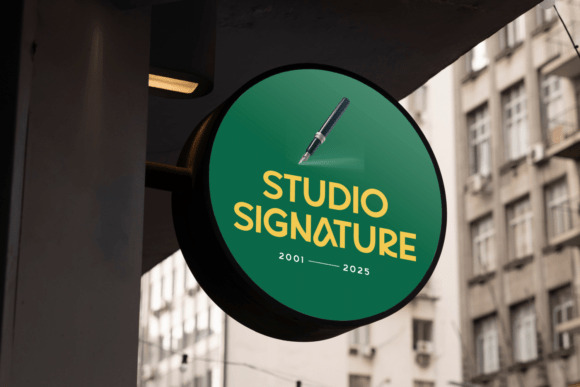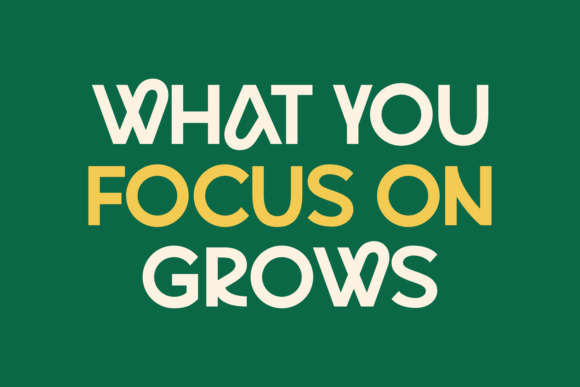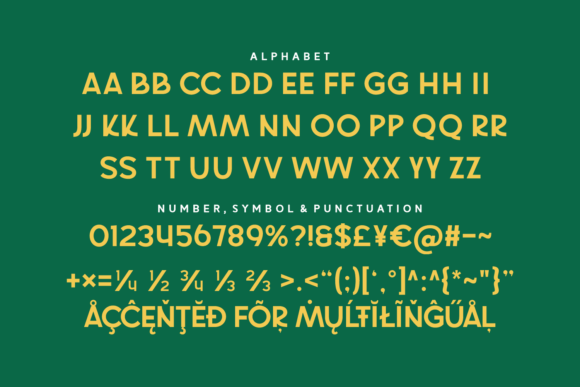
The Perfect Font for Your Next Big Idea
There’s nothing quite like the thrill of a blank canvas, the possibilities endless and the creative juices flowing. It’s the moment when you know exactly what you want to say, but struggle to find the right words to say it with. This is where the perfect font comes in – the one that elevates your message, amplifies your voice, and makes your brand shine.
Meet Chase Hopes Font, a confident and energetic sans serif font that’s designed to make a statement. With its geometric precision and clean lines, it’s the perfect companion for modern brand identities, advertising, posters, and tech-focused layouts. Whether you’re a seasoned designer or just starting out, Chase Hopes Font is a valuable tool that can help you bring your ideas to life.
Key Features of “Chase Hopes Font”
- Font Family: Chase Hopes Font is a sans-serif font family, suitable for various applications including digital media and print.
- Unique Characteristics: The font features a clean, modern design with subtle rounded edges, making it perfect for creating visually appealing and easy-to-read content.
- Language Support: Chase Hopes Font supports a wide range of languages, including Latin, Cyrillic, and Greek scripts, making it a versatile choice for global applications.
Chase Hopes Font Review
Chase Hopes Font is a relatively new addition to the font market. After giving it a thorough tryout, here’s my honest review.
- The unique, optimistic vibe that the font exudes is quite infectious. It’s perfect for designers looking to create a sense of hope and positivity in their projects.
- The font’s versatility in various font weights and styles allows for a wide range of creative applications, from headlines to body text.
- The clean lines and minimal ornamentation give the font a modern and sleek appearance that can easily fit into contemporary designs.
- The font’s legibility at smaller font sizes can be a bit of a challenge, especially for body text. This may require designers to increase font sizes or use font combinations to compensate.
- The font’s condensed nature may make it less suitable for longer blocks of text, where readability is crucial.
- Some users may find the font’s rounded edges too cursive or juvenile for their taste.
Overall, Chase Hopes Font is a solid addition to any designer’s toolkit. While it may have some limitations, its unique charm and versatility make it a great choice for designers looking to add a touch of optimism to their projects.
Chase Hopes Font is ideal for:
– Creative projects requiring a unique and playful touch.
– Branding and marketing materials where a distinctive font is needed.
– Personal projects where a fun and expressive font is desired.